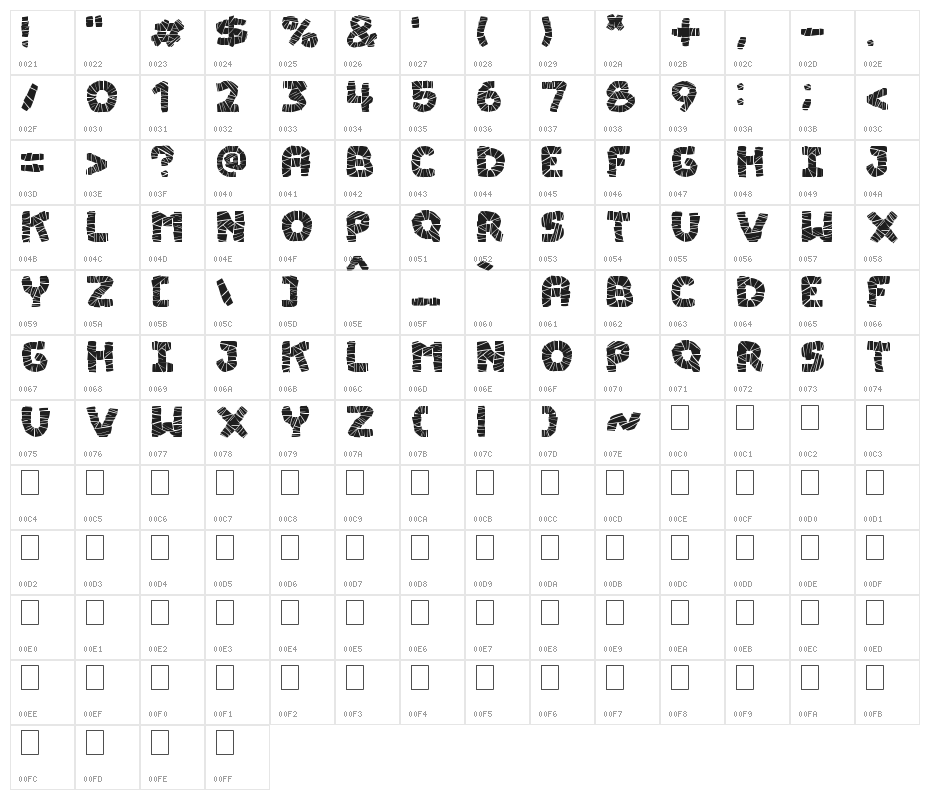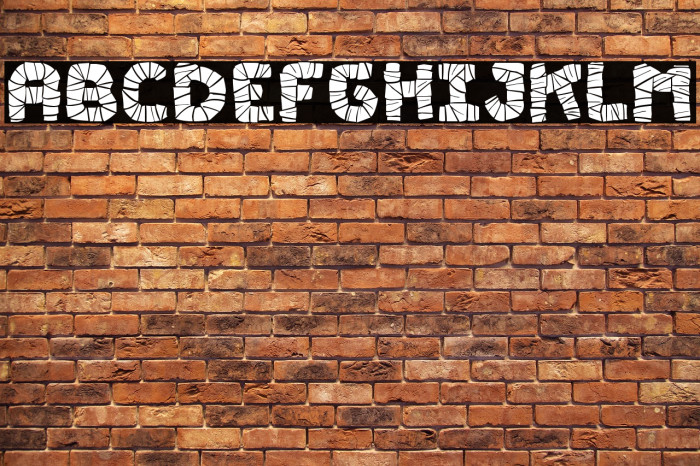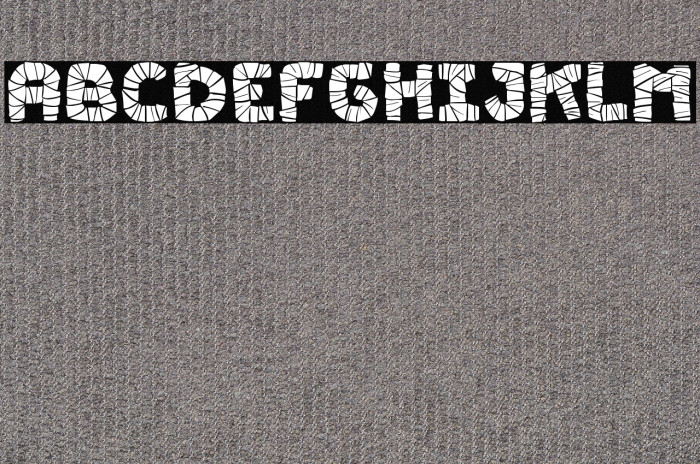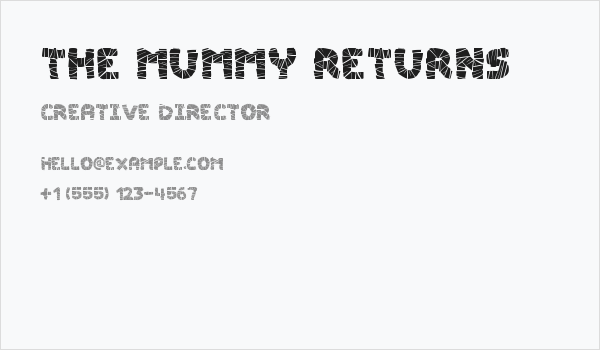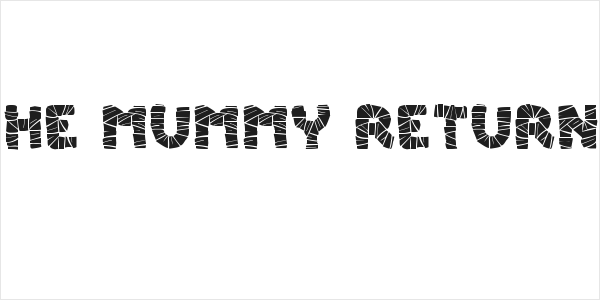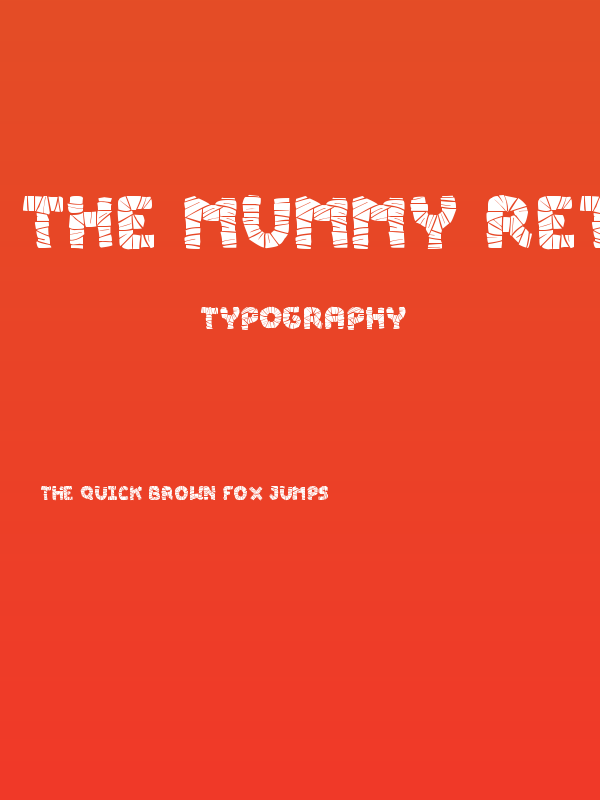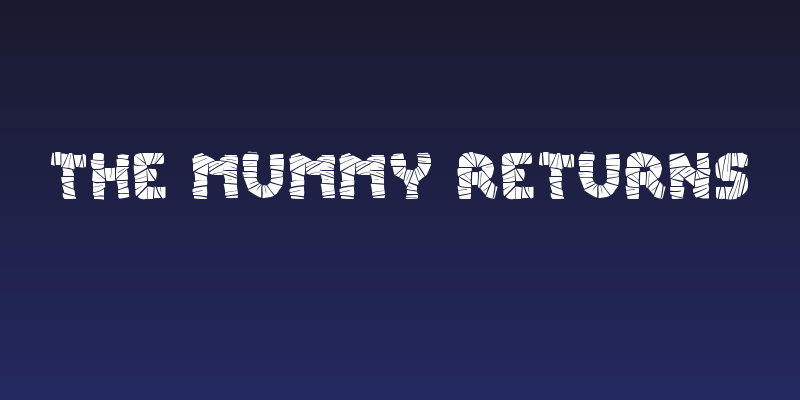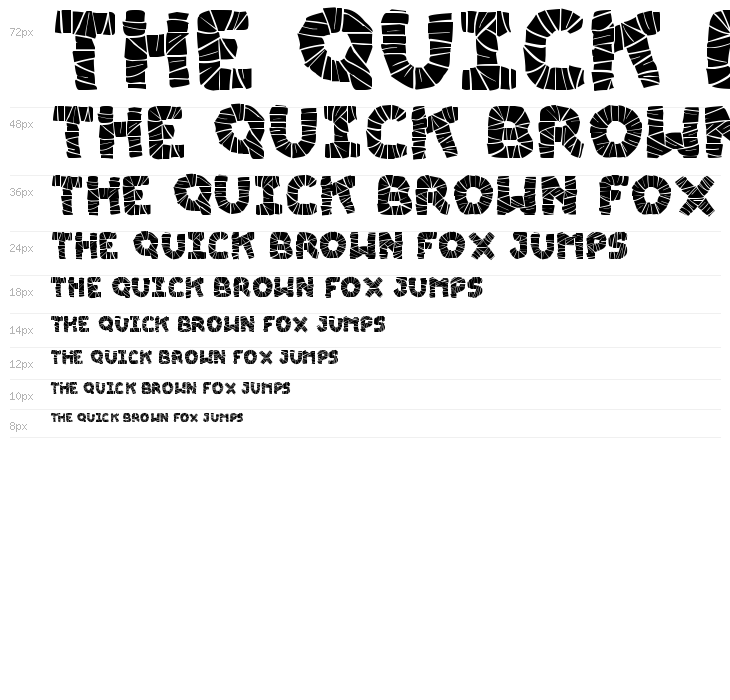
The Mummy Returns Font
The Mummy Returns Description
This font features a unique, fragmented design that mimics the appearance of bandages or wrappings, reminiscent of ancient mummies. Each character is composed of irregular, angular shapes that create a sense of mystery and intrigue. The bold, blocky letters are highly decorative, making them stand out with a distinctive, textured look. The font maintains a consistent width across all characters, ensuring uniformity while the intricate detailing adds depth and complexity. Its striking appearance is ideal for projects that require a dramatic and thematic touch, particularly those related to horror, adventure, or ancient history.
| Use Case | Headlines, Logos, Thematic designs |
| Proposed Projects | Ideal for movie posters, Halloween-themed events, adventure games, or any project needing a mysterious and ancient aesthetic. |